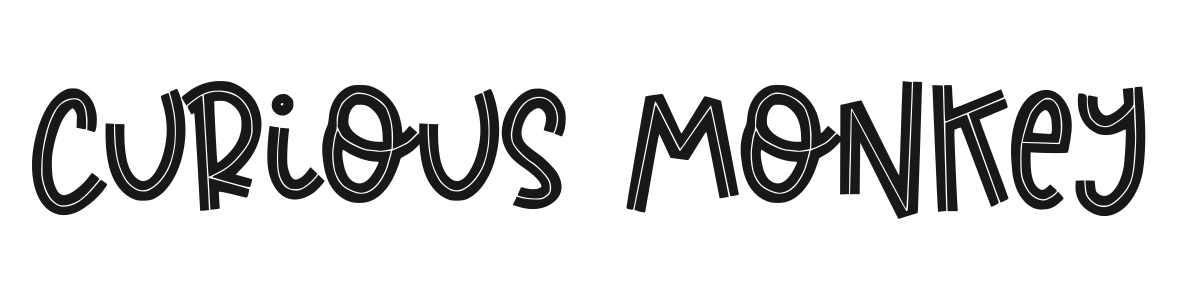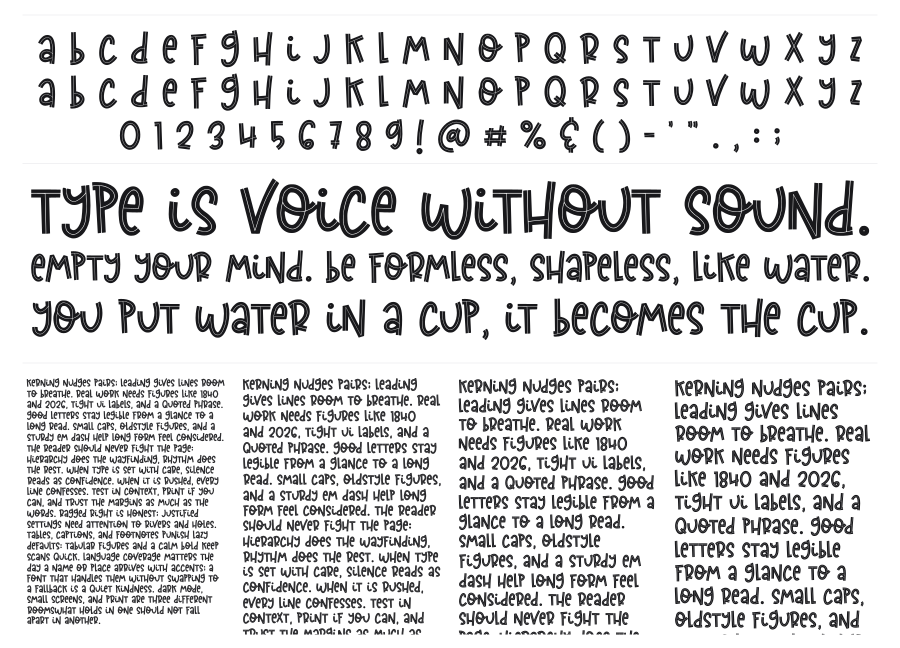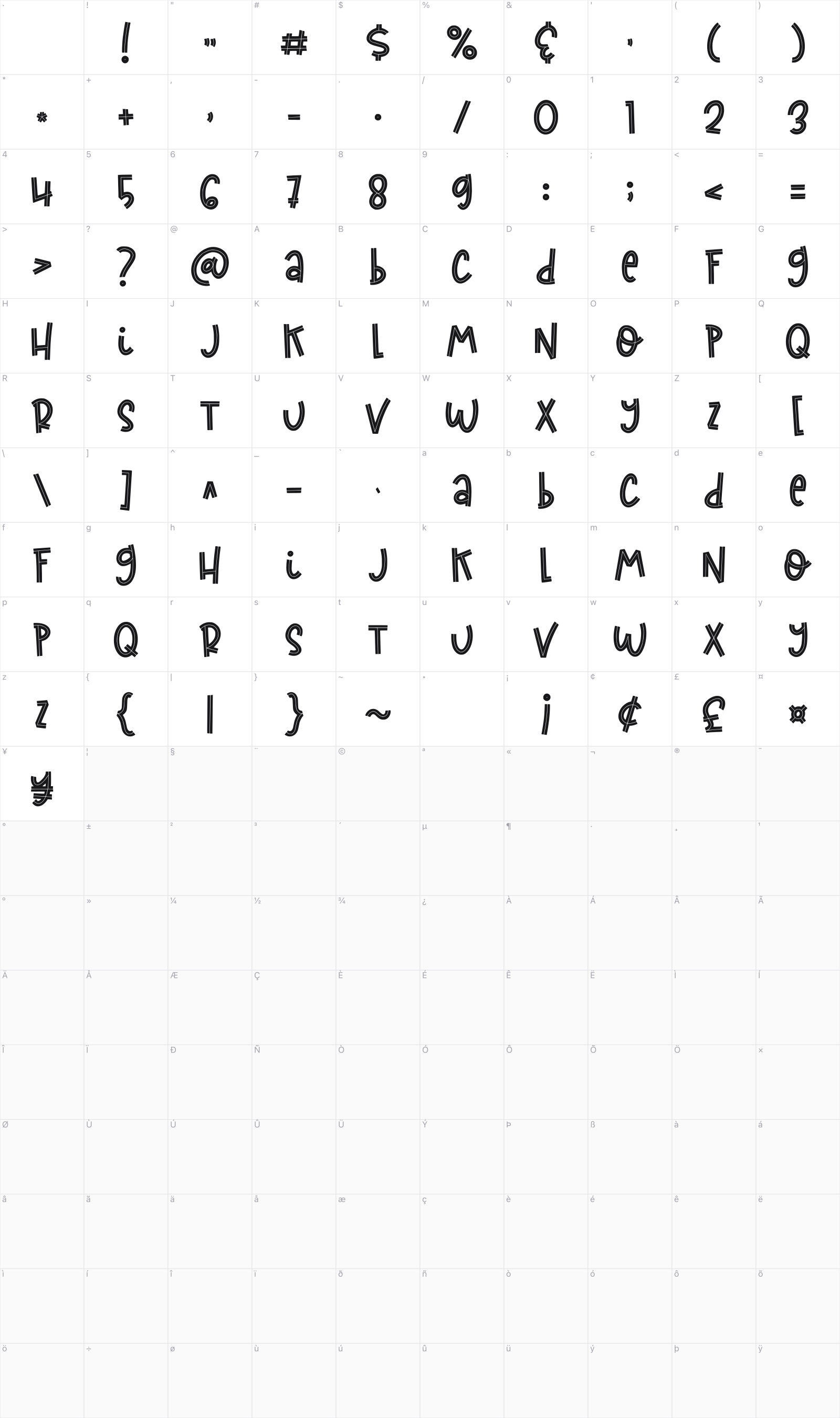
Curious Monkey
Curious Monkey is a bold, quirky display font built around a distinctive inline double-stroke that runs through each thick character stem like a cartoon highlight. The rounded, hand-drawn forms bounce slightly off the baseline, giving it an energetic, informal personality. It works well for children's branding, fun packaging, and any headline that needs to feel approachable and playful.